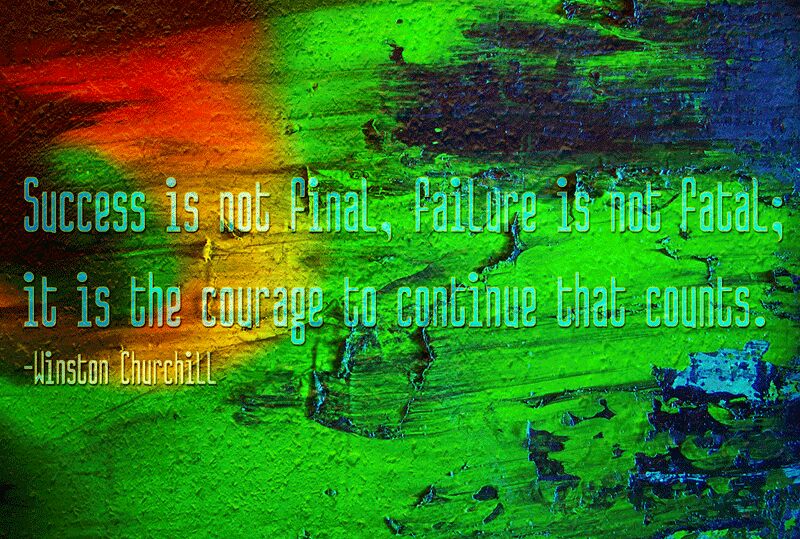
The Jonarun font was derived from Chisato font by Zephram.
Jonarun is a condensed, monospaced, sans serif font with varied widths and tapered or barely rounded, goth cut glyph line ends. It appears as a tall, casual, easy-to-read font.
Jonarun is also multilingual. It offers not only Basic Latin support, but also a complete Latin Supplement 1 and the Greek and Coptic lettersets for extended support in various langages. Additionally, it offers more General Punctuation, a few extra Currency Signs, and a few extra marks (TM, SM).
Although Zephram's work is no longer apparent here in this font, it exists in the underlying compressed letter forms and shapes of most of the characters that inspired me to give it a twist and turn it into a monospaced font with tapered (or subtly rounded cut) line ends. Often, the strokes of a single character will have different widths to give it a little flair, as well.
Jonarun font was derived from Chisato font by Zephram.
Jonarun (and Chisato) font was built using FontStruct.
Although Zephram's work is no longer apparent here, it exists in the underlying compressed letter forms and shapes of most of the characters that inspired me to give it a twist and turn it into a monospaced with tapered (or subtly rounded) line ends. Often, strokes will have different widths in Jonarun, as well.
Type: Condensed Monospaced Sans.
I guess I would classify this one as: Casual, Tall, Tight.
Weight: Regular.